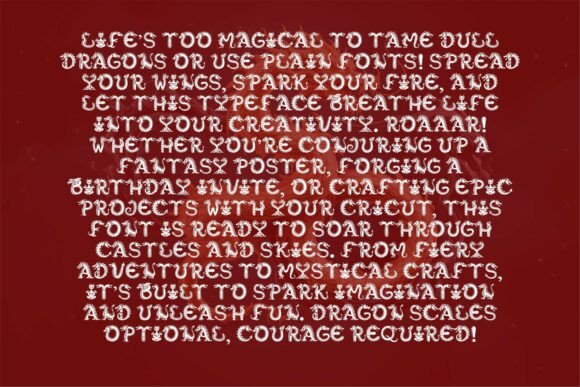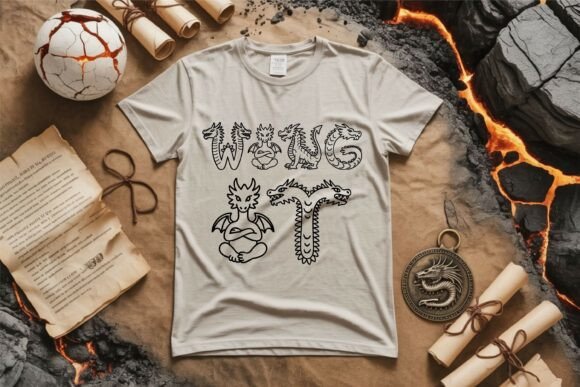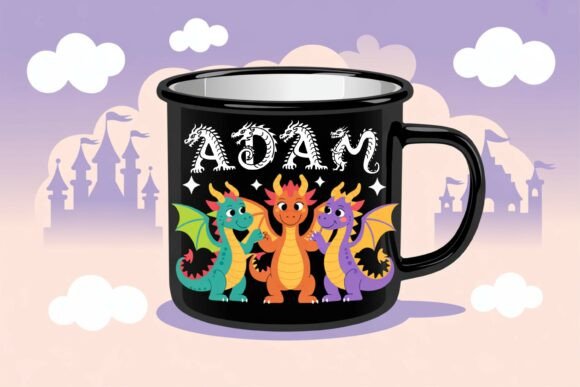
Unleash the Power of Dragon Storm Font: A Comprehensive Guide
I’ll never forget the time I was working on a fantasy-themed poster project, and I just couldn’t find the right font to bring my design to life. My client wanted something bold, mystical, and eye-catching, but everything I tried seemed to fall flat. That’s when I stumbled upon the Dragon Storm Font, and it completely transformed my project. In this article, I’ll share my experience with this incredible font, its features, and how to make the most of it in your creative projects.
A Personal Review: What I Love and What to Consider
- 💥 The bold and outline styles offer incredible versatility for various design applications.
- 🔥 The unique dragon-themed details add a touch of fantasy and elegance to any text.
- 🎨 The font’s design allows for endless creative possibilities, from titles and posters to t-shirts and digital crafting.
- 👍 It’s perfect for adventure posters, gaming graphics, dragon-themed books, nursery wall art, and striking logo designs.
- 🤔 The font might be a bit too bold for body text, so it’s best used for headings and titles.
- ⚠️ Some users might find the outline style a bit tricky to work with, especially when it comes to color and layering.
- Explore the font’s OpenType features, such as glyphs and stylistic alternates, to add more depth to your design.
The Story Behind Dragon Storm Font
Legend has it that the creator of Dragon Storm Font, a passionate fantasy fan and typographer, was inspired by ancient dragon legends and mythologies. The goal was to craft a font that would bring the magic and power of dragons to life in any design. After months of work, the Dragon Storm Font was born, featuring unique dragon-themed details and two striking styles: Bold and Outline.
Q: What type of projects is Dragon Storm Font best suited for?
A: Dragon Storm Font is ideal for adventure posters, gaming graphics, dragon-themed books, nursery wall art, and striking logo designs.
Q: Is Dragon Storm Font available in other languages?
A: The font’s language support may vary, but it’s primarily designed for English and other Latin-based languages.